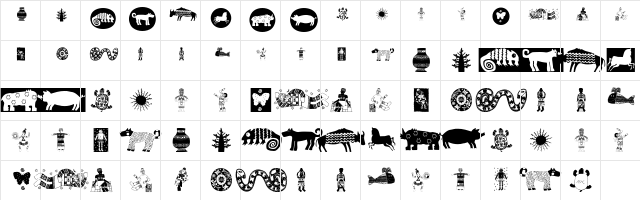
Complete Africain Regular glyph index. Displaying only characters natively supported by Africain Regular font.
Africain is a composed and adaptable typeface that performs quietly and consistently across a wide range of design contexts.